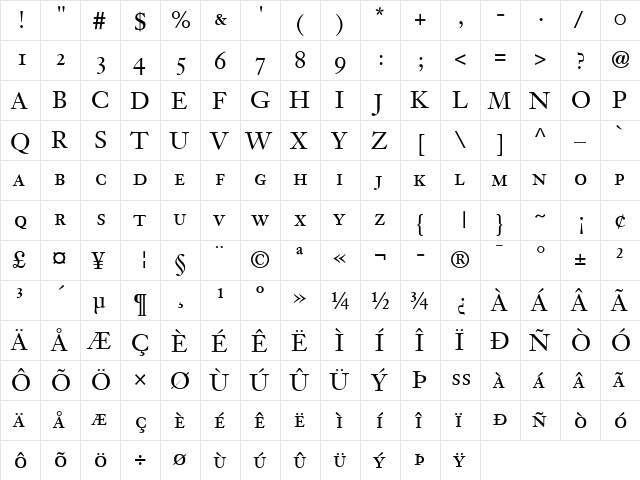
JansonText RomanSC Regular
Design Context for JansonText RomanSC Typeface
JansonText RomanSC takes a measured approach to typography — its balanced proportions and neutral character make it a reliable workhorse for both digital and print work.